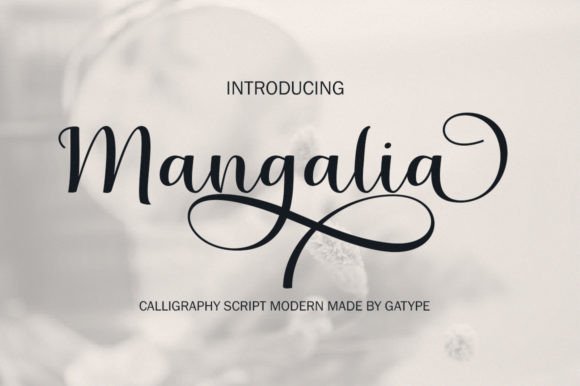
Introduce your brand to the world with Mangalia Font, the captivating script font that exudes elegance and charm. This exquisite font, crafted by the renowned gatype, is a perfect blend of sophistication and playfulness that will leave an unforgettable impression on your audience.
With Mangalia Font, you'll have the power to transform your creative visions into captivating realities. Let your words dance across the page with a natural handwritten flair, evoking emotions and capturing attention like never before.
Picture your brand's logo, adorned with the alluring curves of Mangalia Font, becoming an icon of timeless style. Design wedding invitations that capture the hearts of brides-to-be, adorned with intricate swirls and delicate flourishes that whisper of romance and enchantment. Create social media posts that pop with personality, using Mangalia Font to make your messages shine and resonate with your followers.
Elevate your product packaging with a touch of sophistication, using Mangalia Font to create labels that exude quality and allure. Design product designs that stand out on the shelves, using Mangalia Font to add a touch of uniqueness and charm. Showcase your photography with watermarks that blend seamlessly with your images, using Manggalia Font to add a personal touch and protect your work.
Mangalia Font is the perfect choice for any creative project that demands attention and leaves a lasting impression. Its versatility knows no bounds, making it suitable for logos, invitations, stationery, wedding designs, social media posts, advertisements, product packaging, product design, labels, photography, watermarks, or special events.
Unleash the power of Mangalia Font today and embark on a creative journey that will captivate your audience and leave them spellbound by your designs.